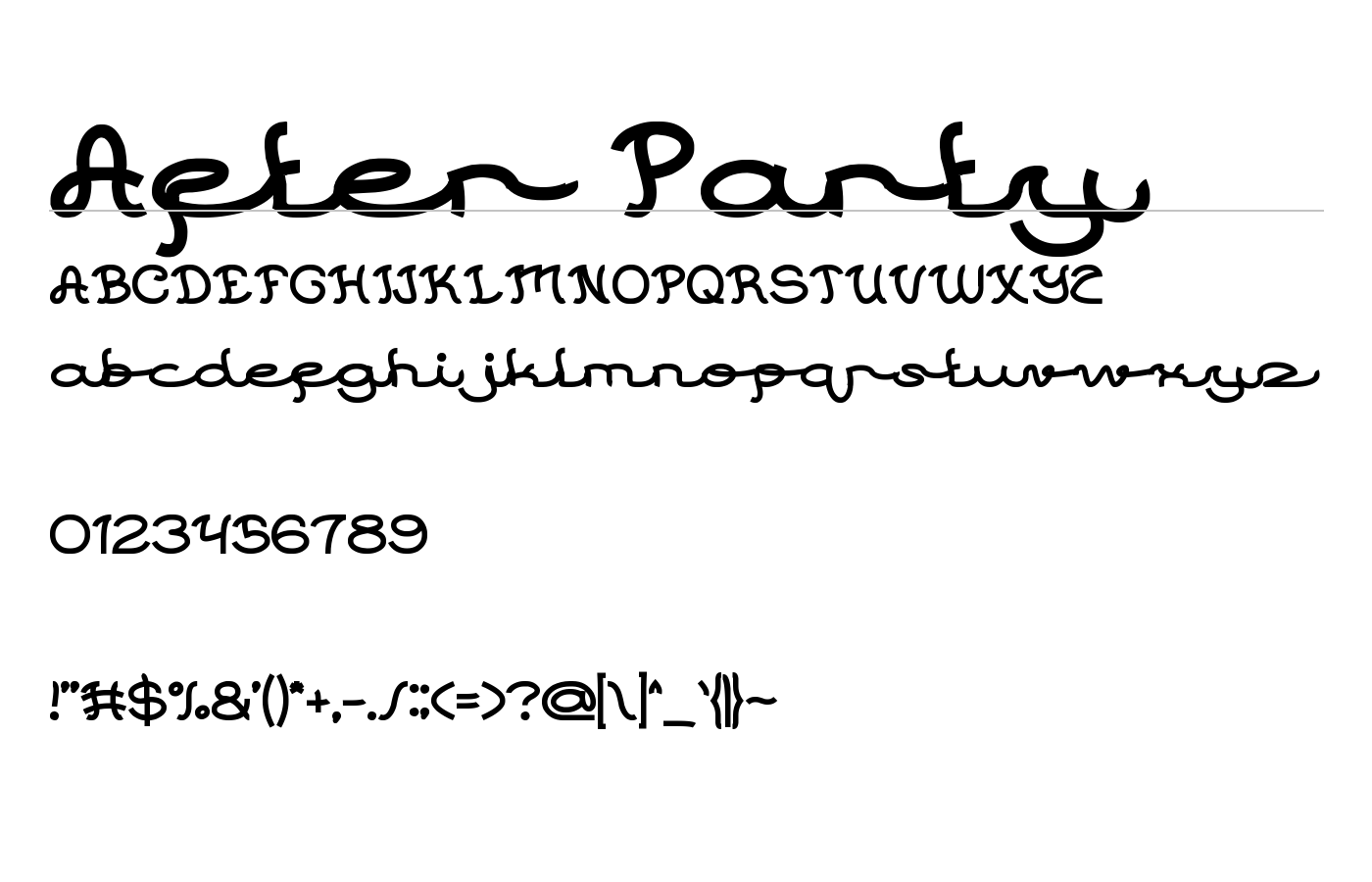
After Party is a playful and casual script font with a unique hand-drawn feel, featuring smooth, rounded strokes and lively, looping letterforms that convey a friendly and informal vibe. Its clean, monoline design with consistent weight makes it versatile for creative headlines, fun branding, and invitations where a relaxed and approachable personality is desired. This font works well for party-related themes, children’s products, or any design that benefits from a cheerful and whimsical touch.
After Party Font
About After Party Font